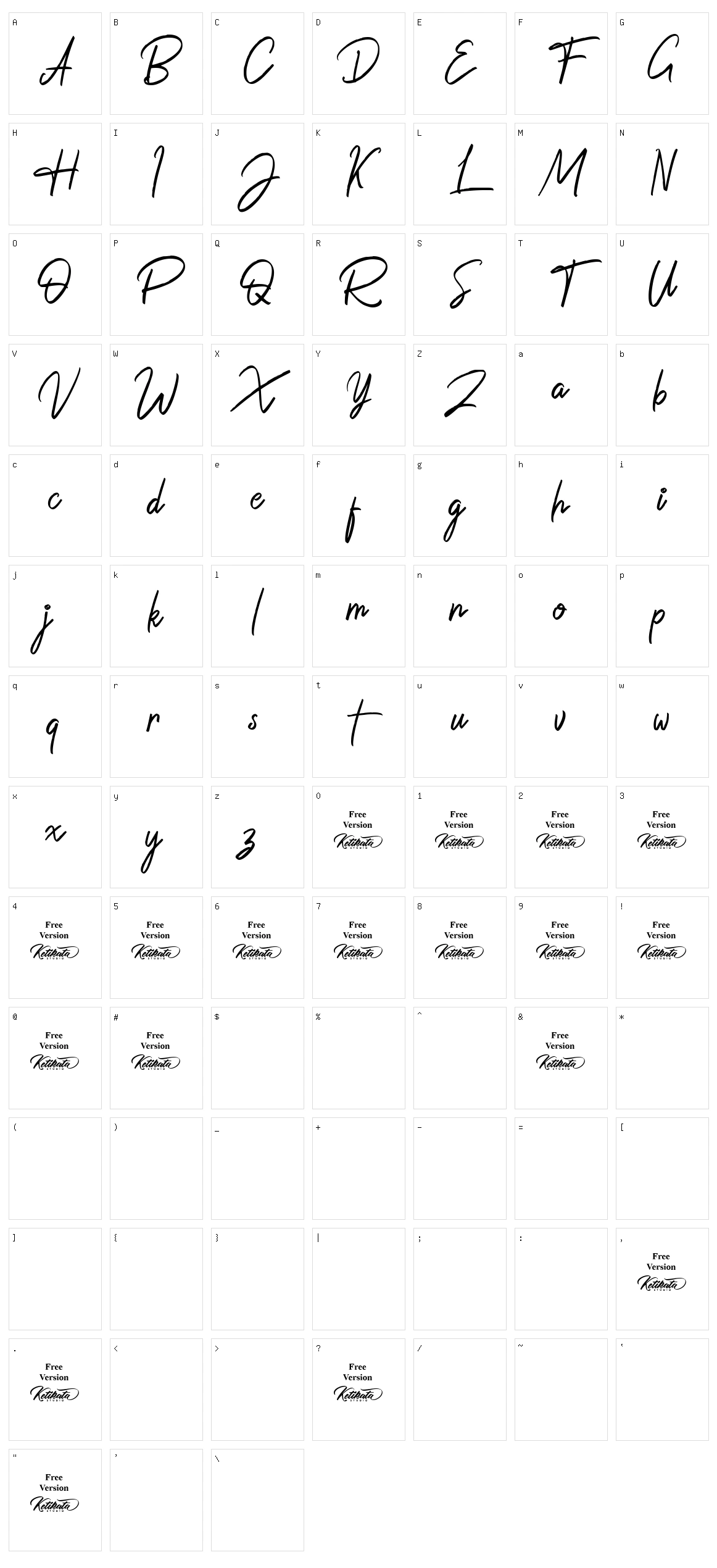
The free font The Rich Jullietta is carefully designed by Ketikata Studio, showcasing a thoughtful balance of creativity and usability and falls under the Script font style. When you download the ZIP file, it contains only 178.5 KB of font files, making it lightweight and quick to download. Please review the license details below to understand permitted usage and distribution rights. If license information is not available, we recommend using this font for personal projects only or contacting the author directly for commercial usage permissions.